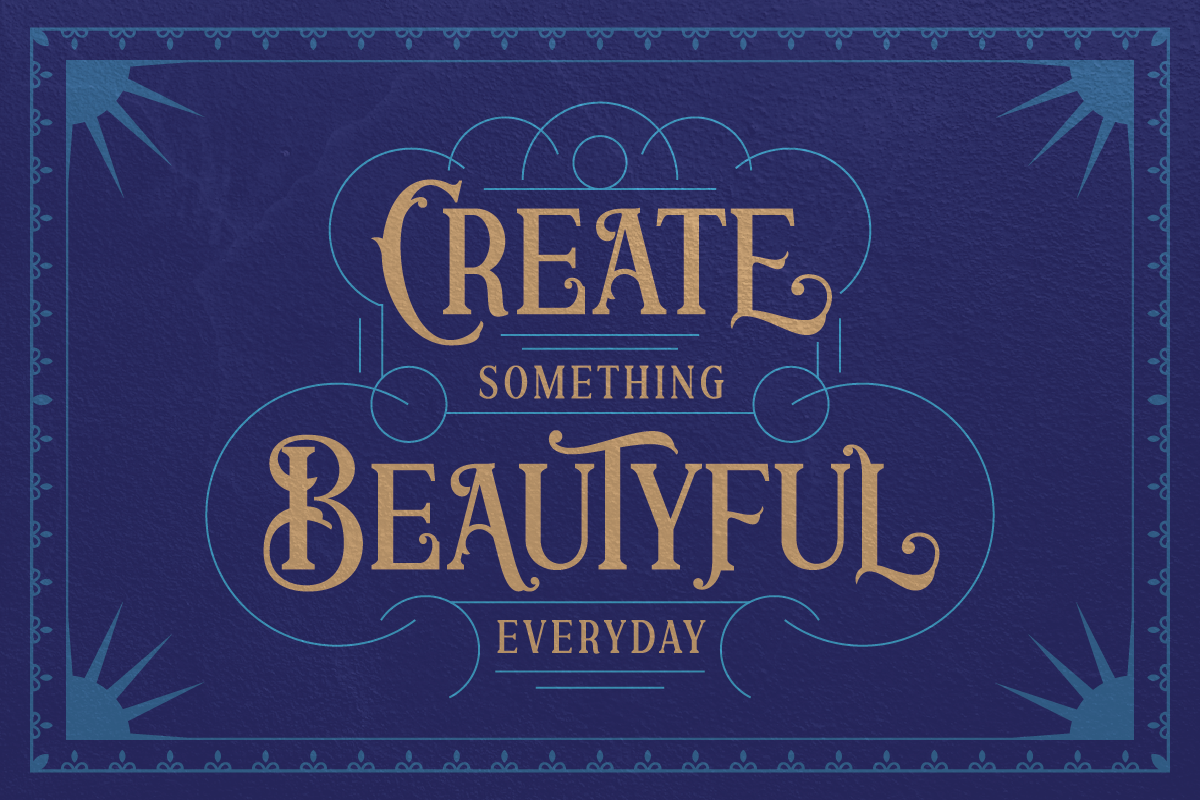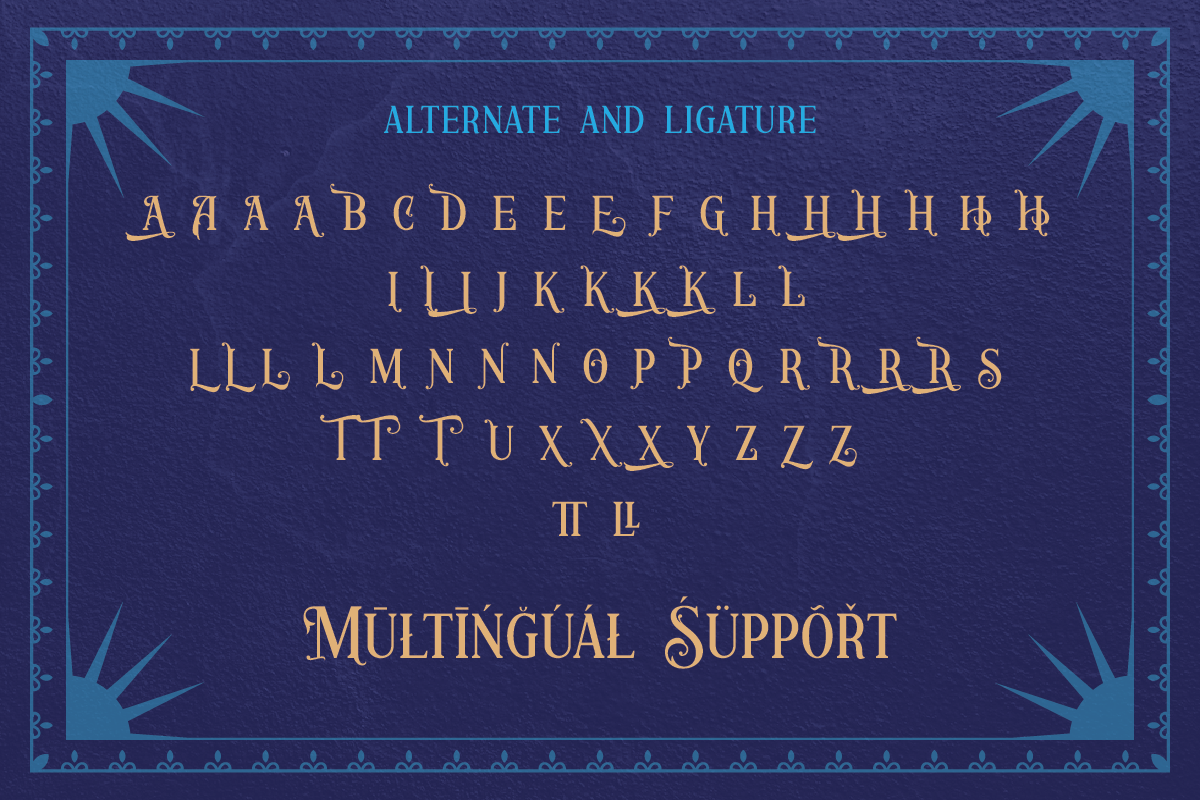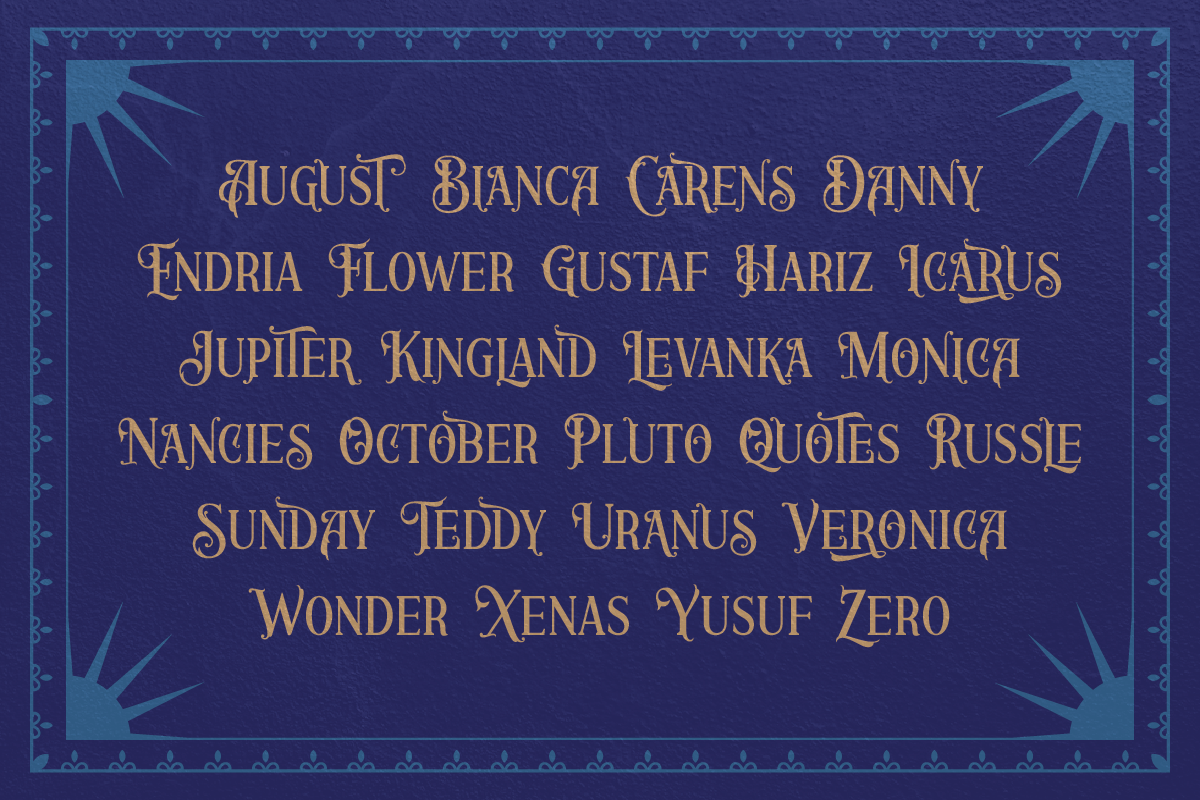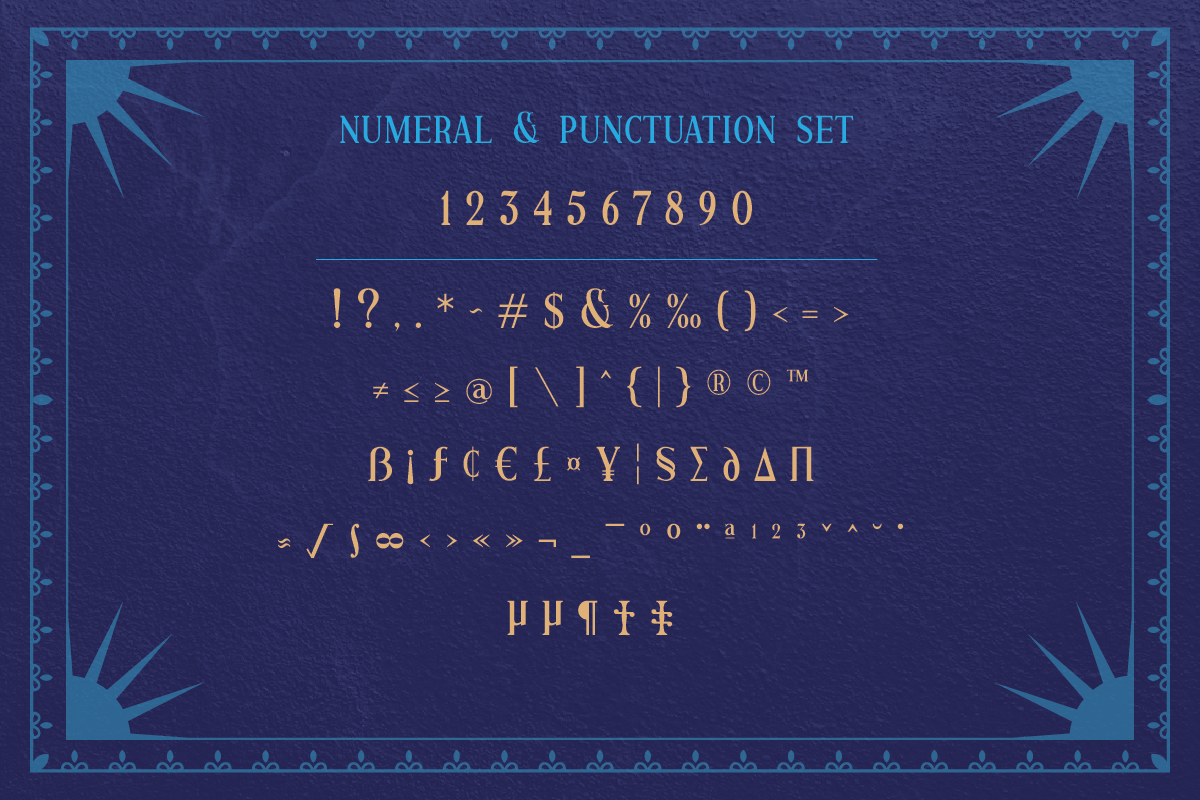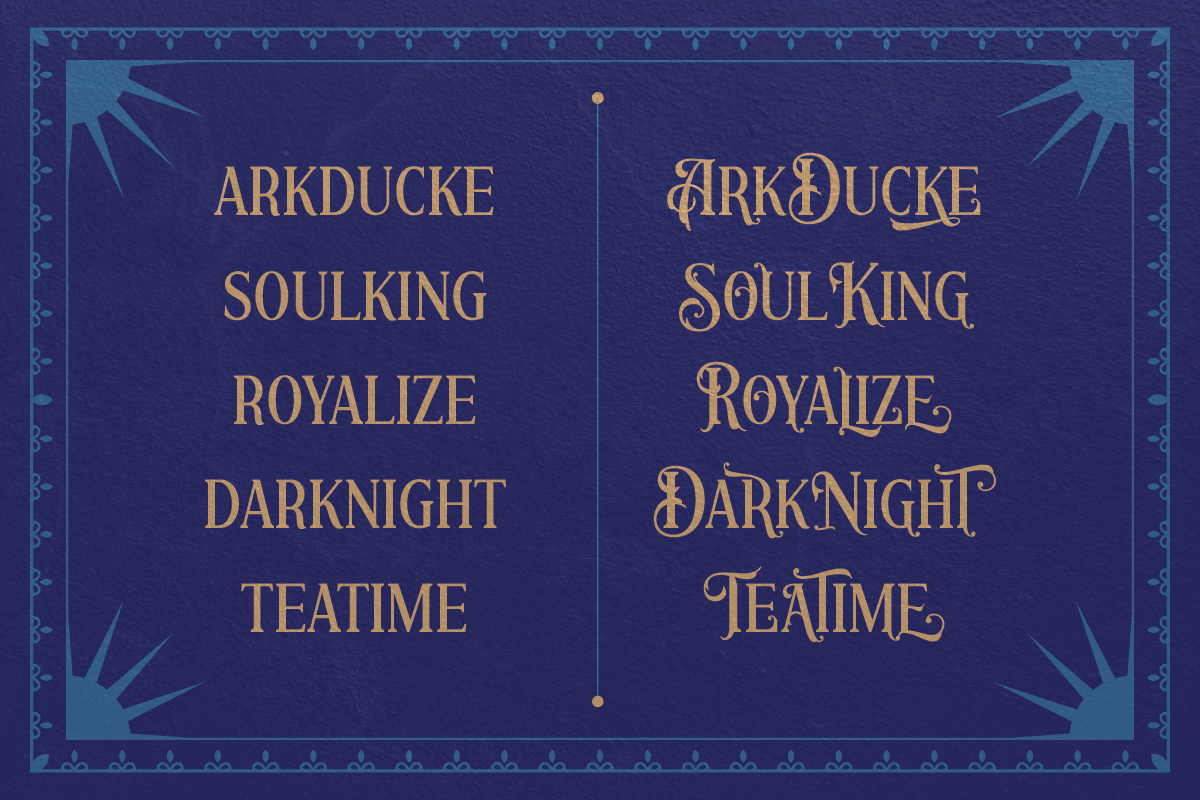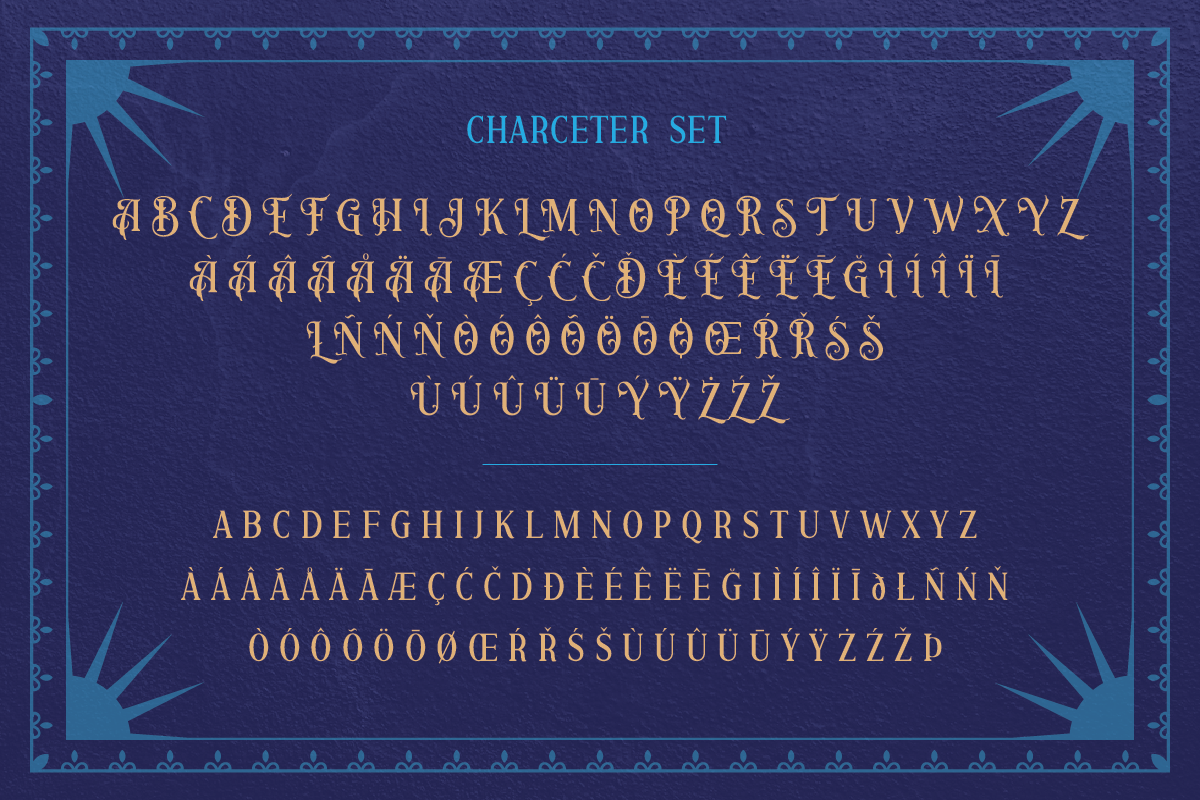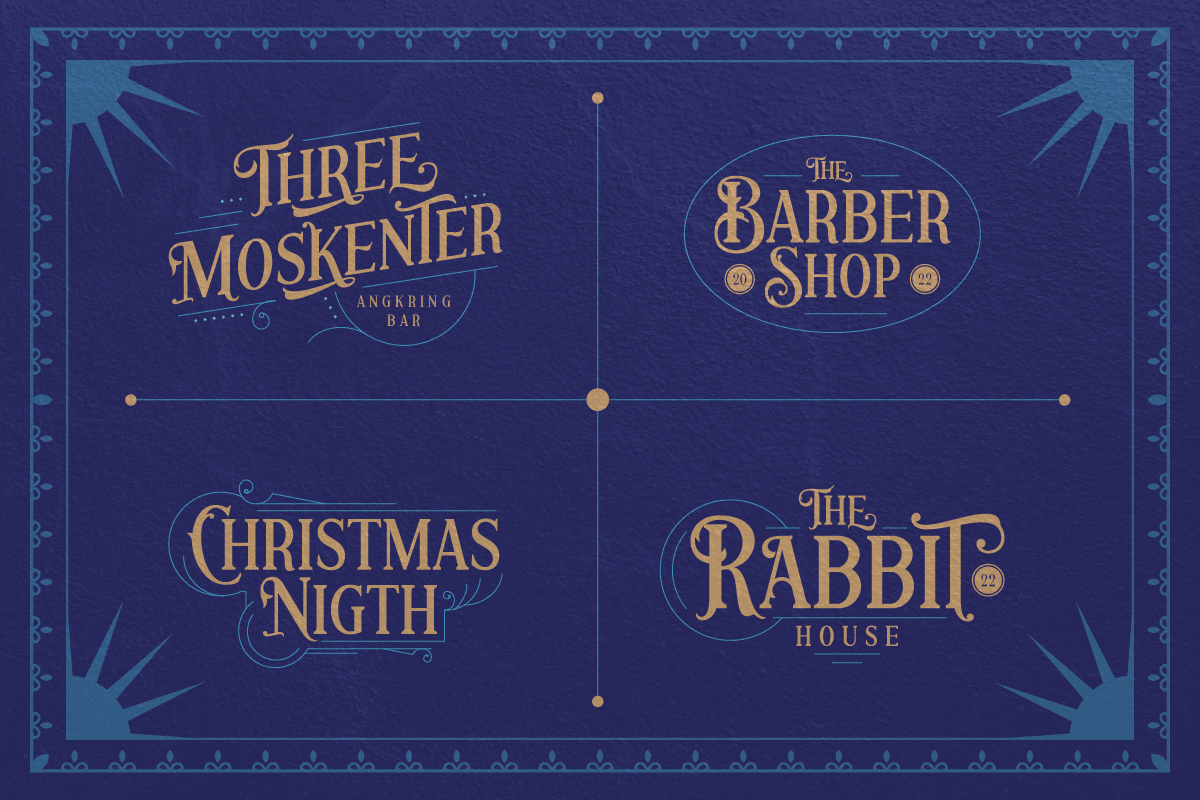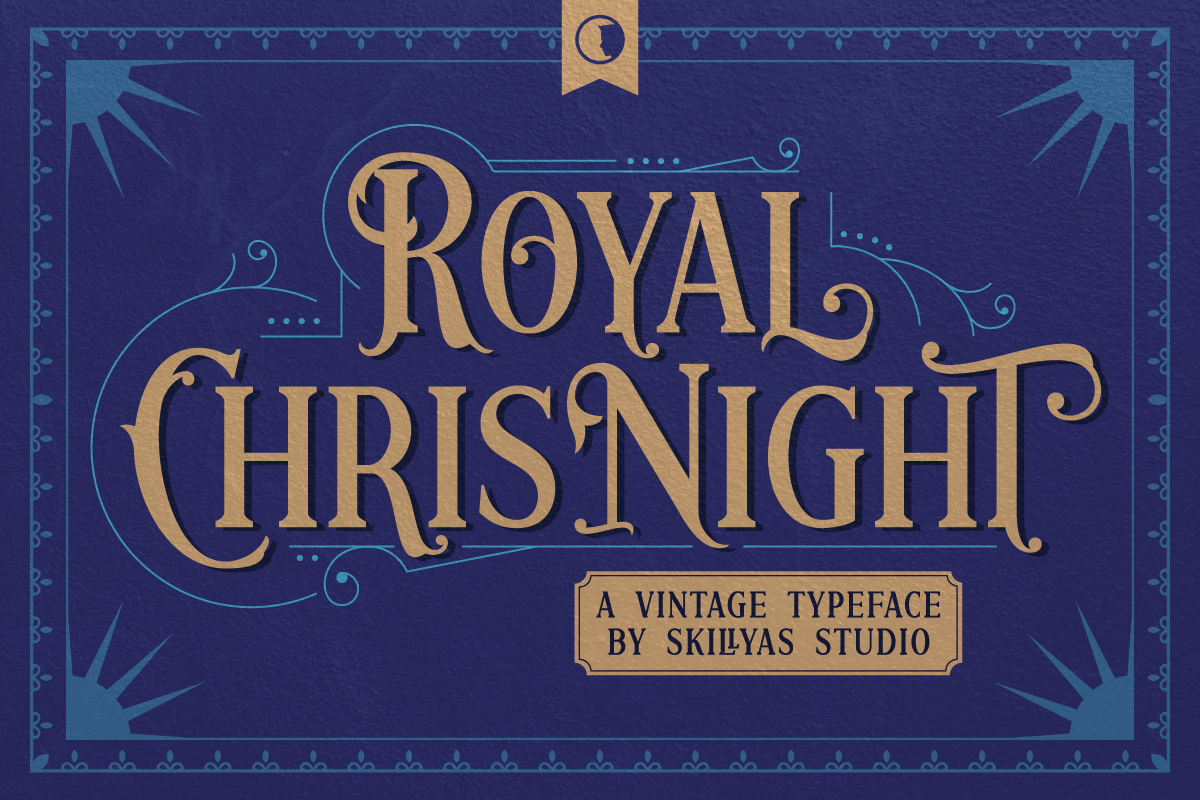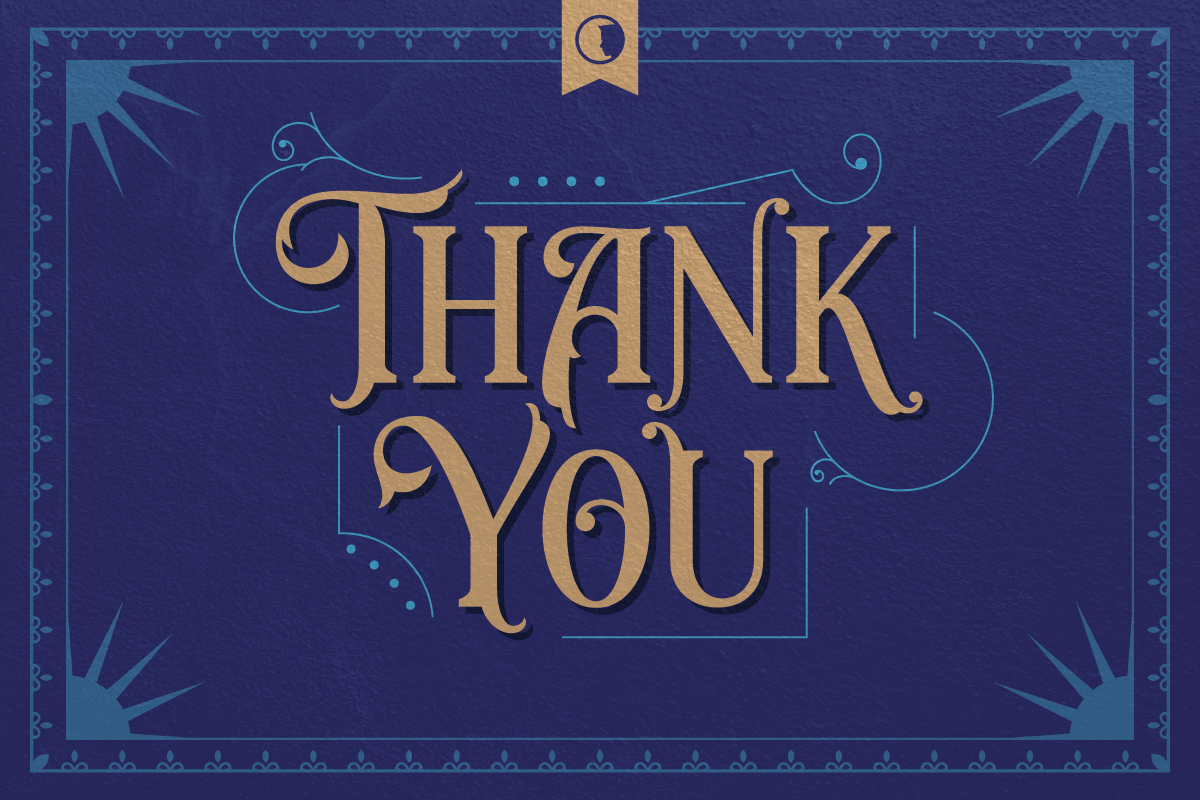
Royal Chrisnight a Vintage Font
Royal Chrisnight is a Vintage Font inspired by beautiful vintage art Deco and lettering.
Royal Chrisnight comes with 320 glyphs, including special uppercase and lowercase letters, alternate characters, and beautiful ligatures.
The font is perfect for elegant logo design, packaging, magazine cover, invitation cards, or anything your project needs elegant and vintage touch.
Royal Chrisnight Character Set :
- Uppercase & Lowercase Letters
- Punctuation & Symbols Support
- PUA encoded Range Standard Alternative Style
- Standard Ligature